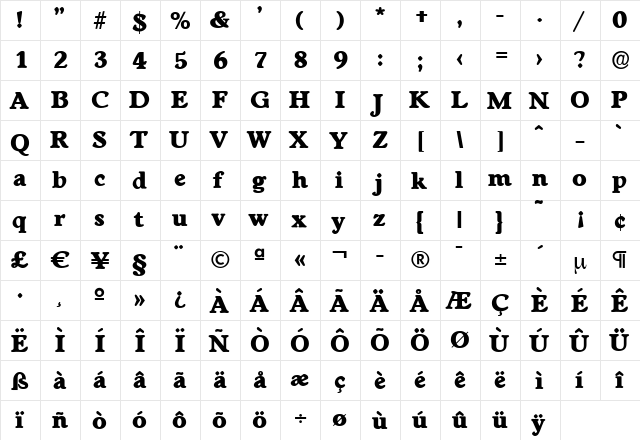
DonBecker-Heavy Regular
Design Context for DonBecker-Heavy Typeface
DonBecker-Heavy is a composed and adaptable typeface that performs quietly and consistently across a wide range of design contexts.